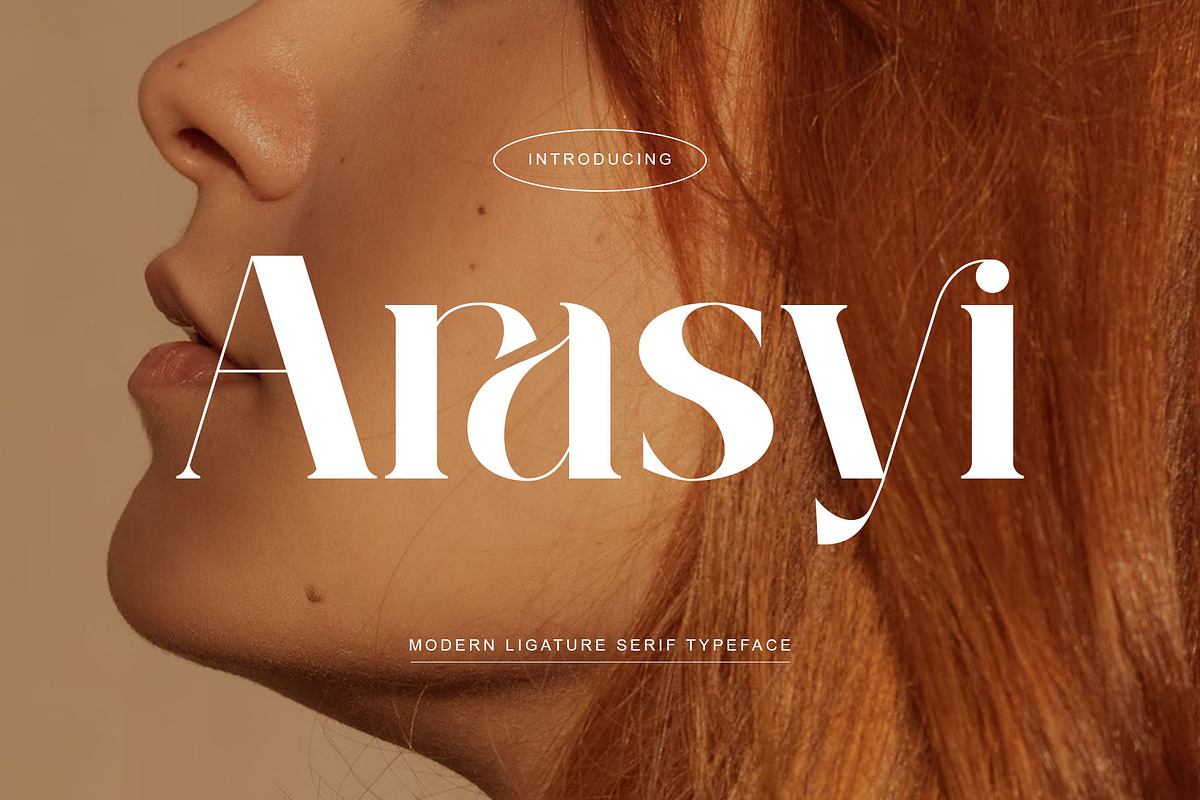
Arasyi Modern Ligature Serif Typefac Free Download
Arasyi Modern Ligature Serif Typeface Free Download is a refined and stylish serif font featuring elegant ligatures and graceful curves. Perfect for luxury branding, fashion editorials, wedding designs, and upscale packaging, Arasyi blends timeless sophistication with a contemporary twist. Please note that you must purchase this font for commercial use, but it is available as a free download for testing purposes. Enhance your typography with the polished beauty of Arasyi Modern Ligature Serif Typeface Free Download, and let your designs exude class, creativity, and modern elegance.